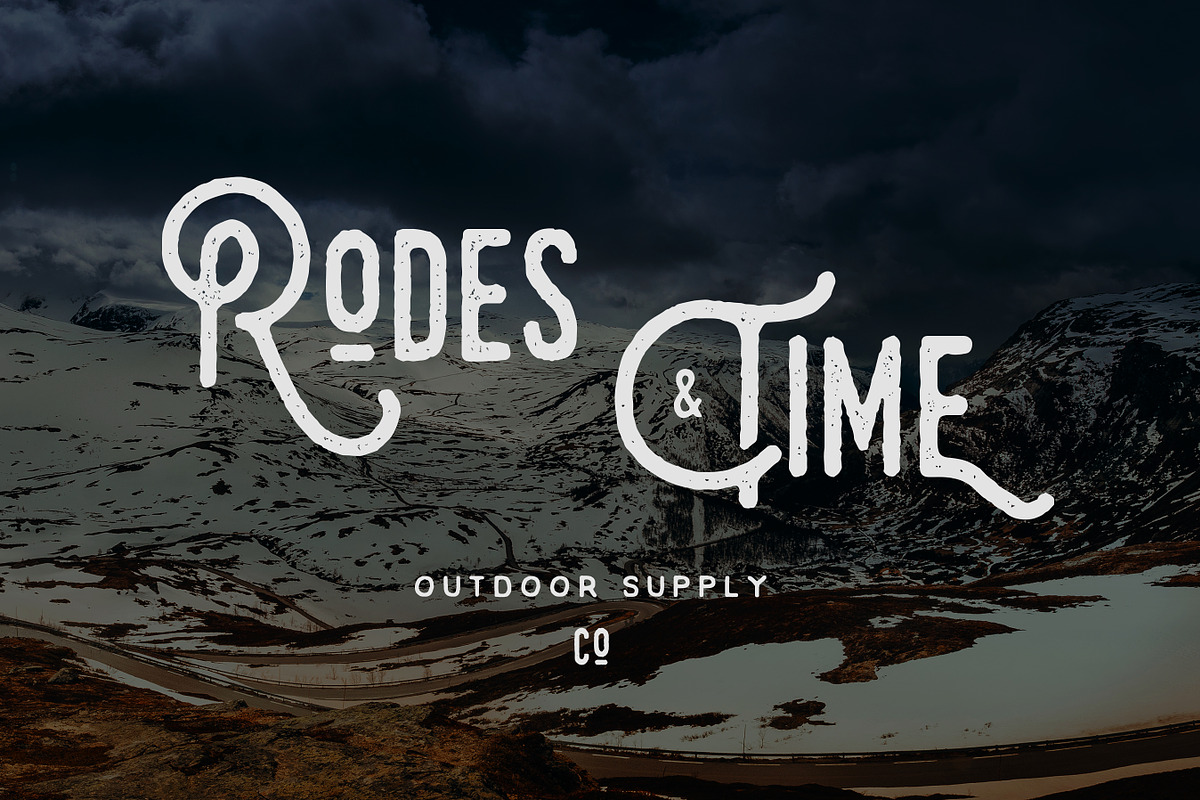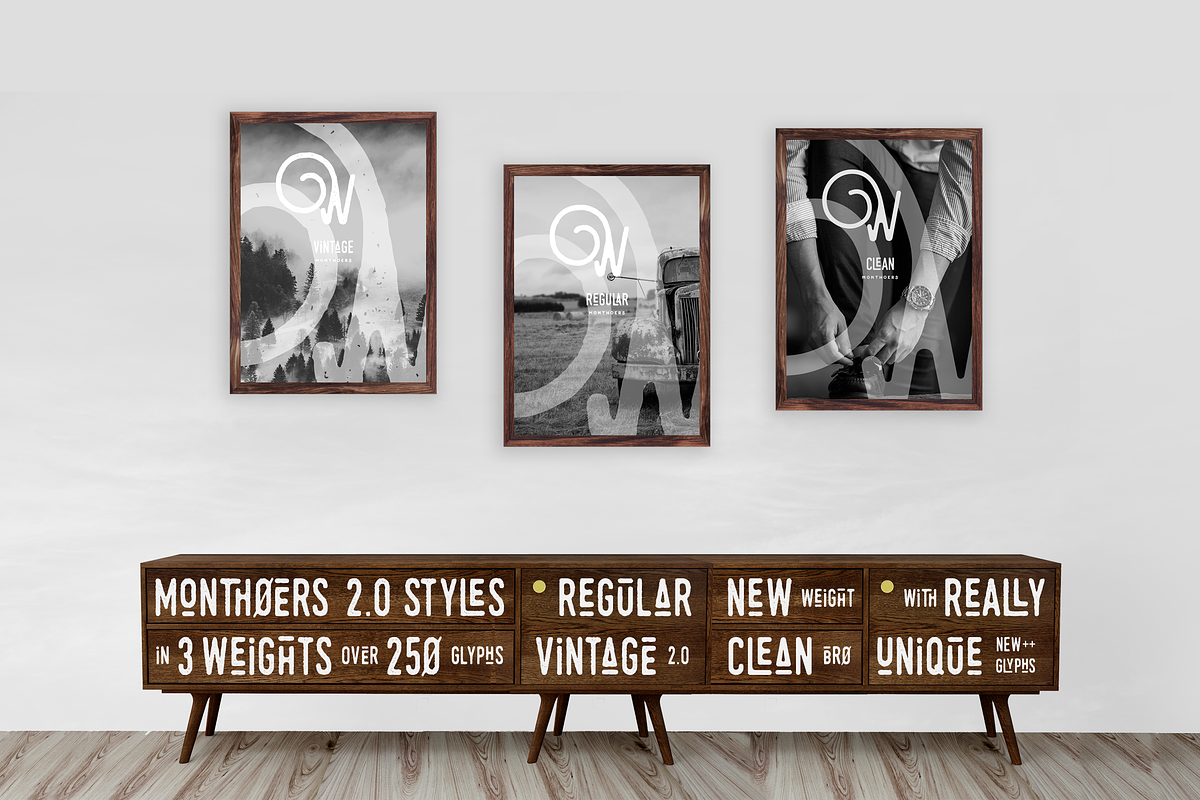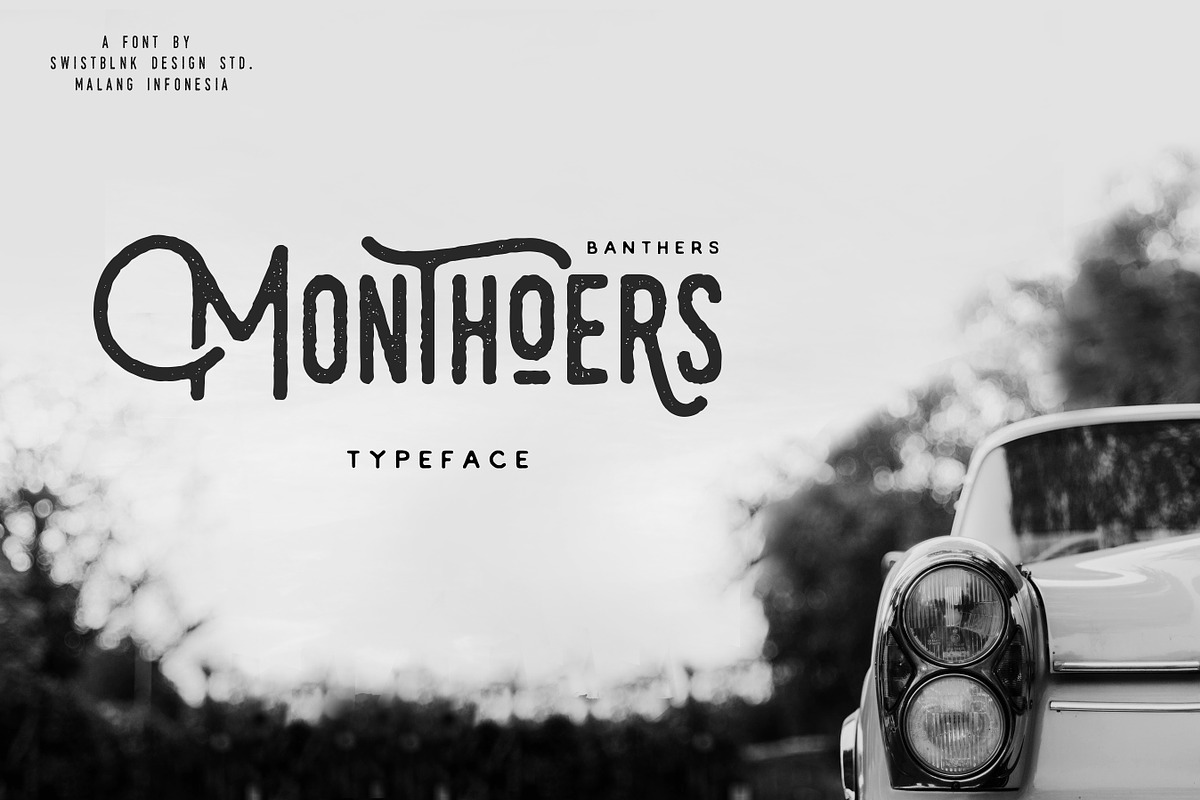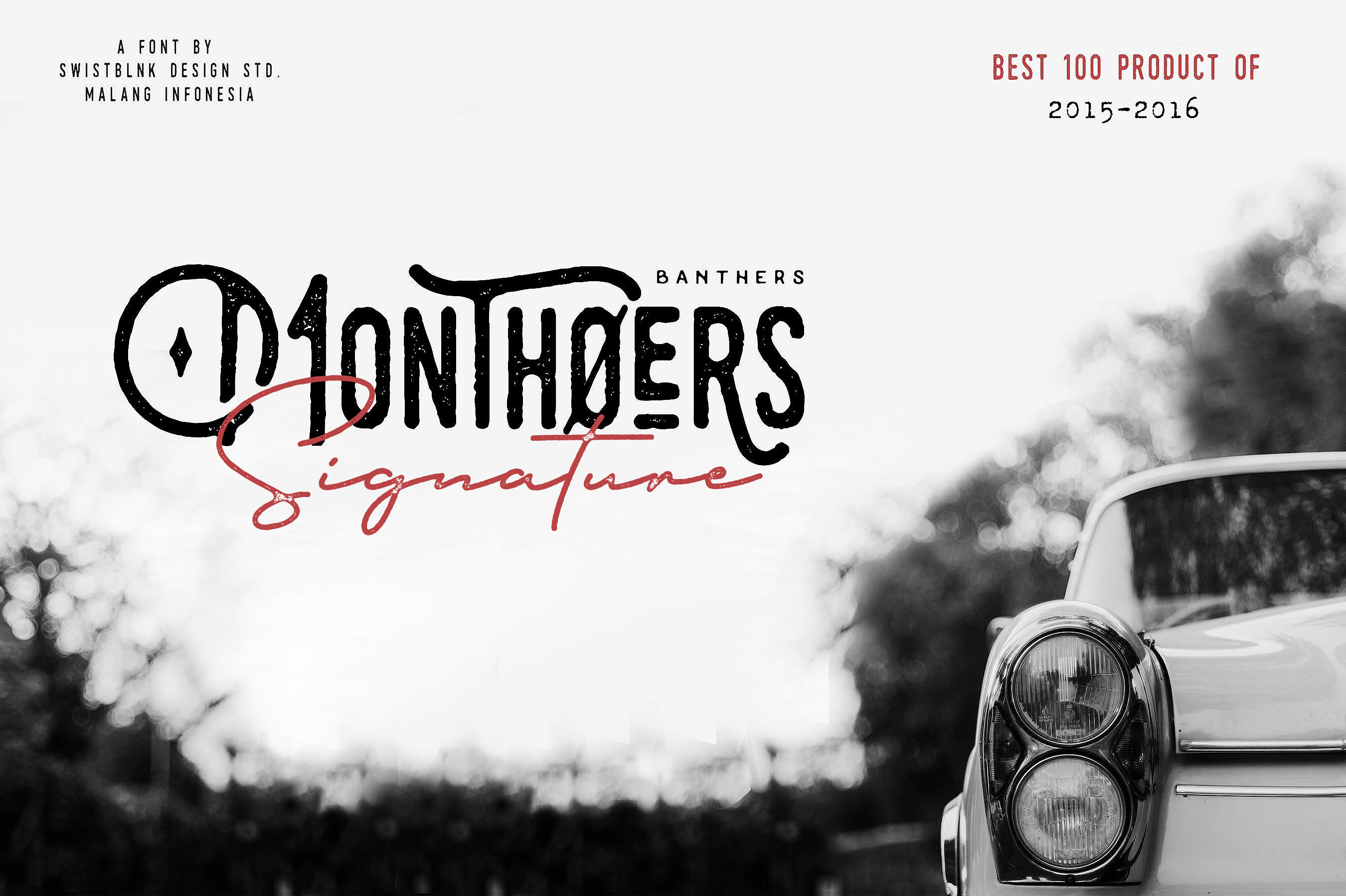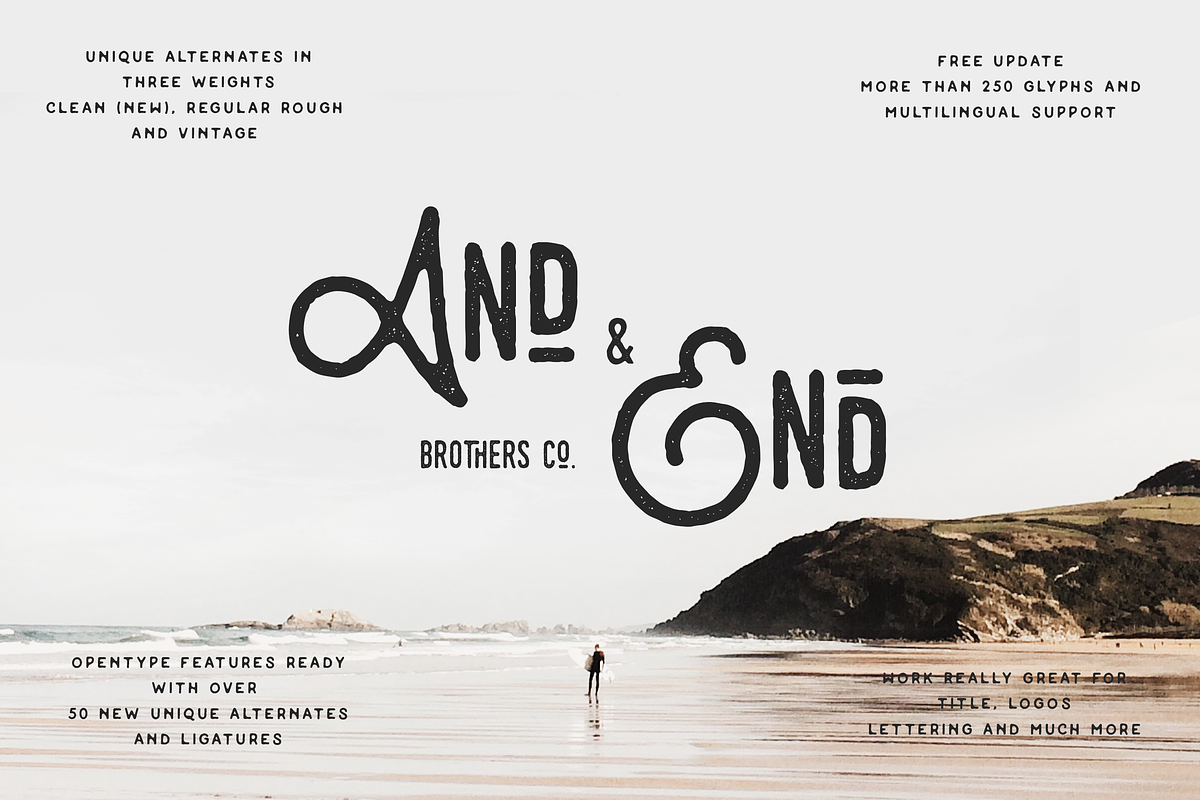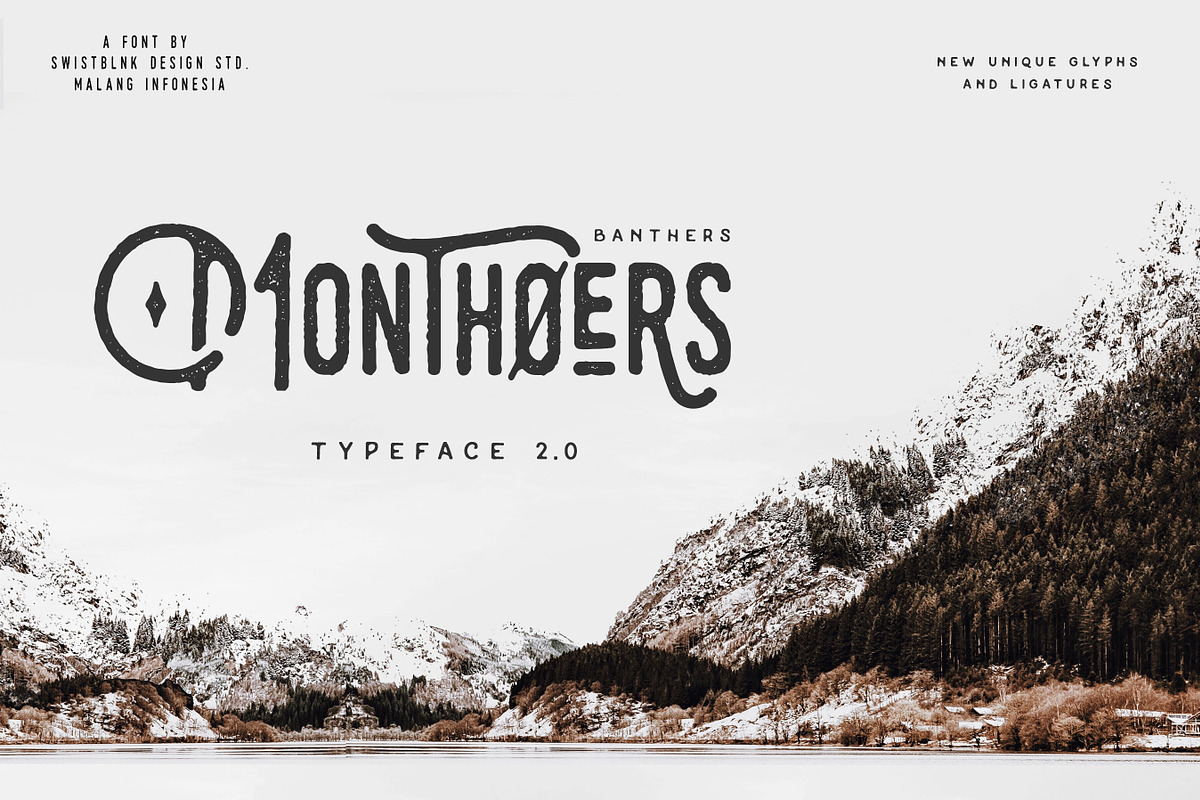
Monthoers Signature - Font Duo
Monthoers was released 3 years ago and we are so proud to announce our Latest Monthoers 3.0
Monthoers 3.0 Features :
Monthoers Weight : NEW
- Monthoers 2.0 Clean
- Monthoers 2.0 Rough
- Monthoers 2.0 Vintage
- Monthoers Signature Clean
- Monthoers Signature Rough
- Monthoers Signature Vintage
Monthoers is handmade modern vintage textured display typefaces, which is combining the style of classic typography with an modern handlettering style. in this version you can easily combine with this duo to create classic style.
There are more than 197 glyphs in the font including Stylistic sets, Ligatures, Contextual Alternates etc. OpenType features with Stylistic Alternates, Contextual Alternate in some characters that allows you to mix and match pairs of letters to fit your design. To access the alternate glyphs, you need a program that supports OpenType features such as Adobe Illustrator CS and Adobe Indesign.
- New Weight "Clean"
- New Monthoers Signature